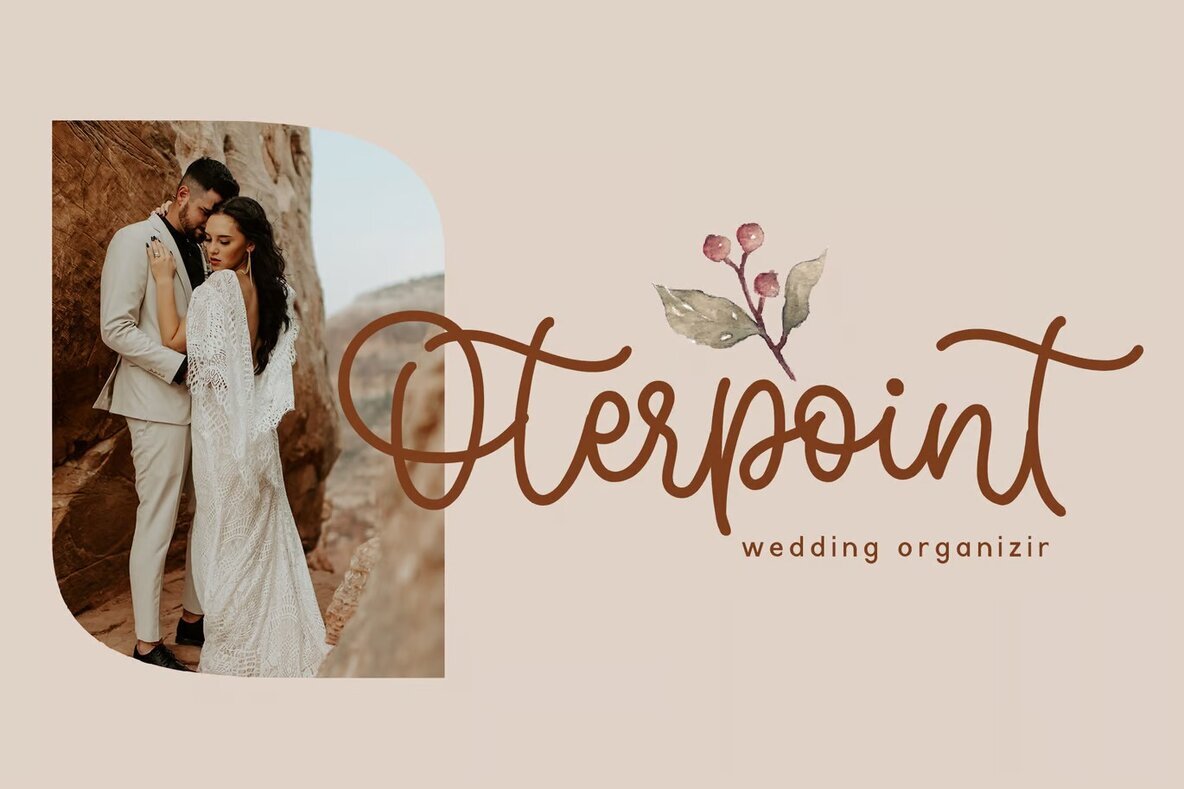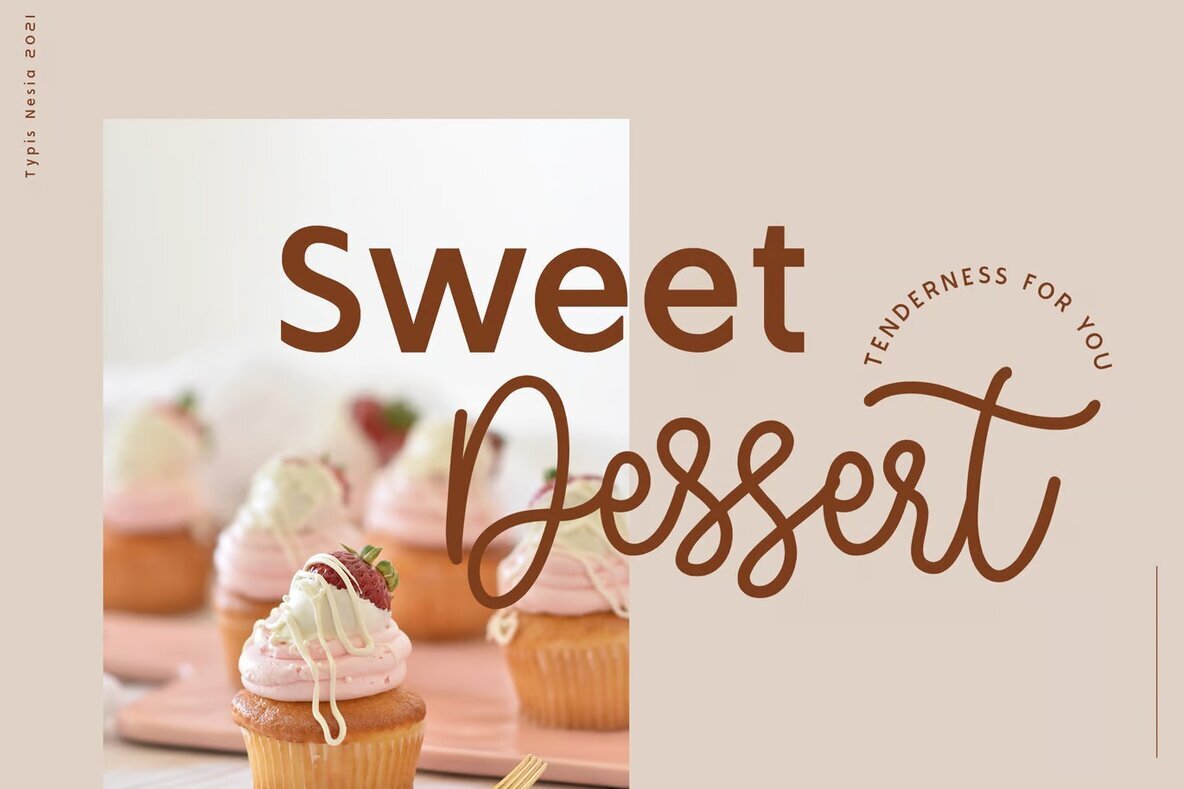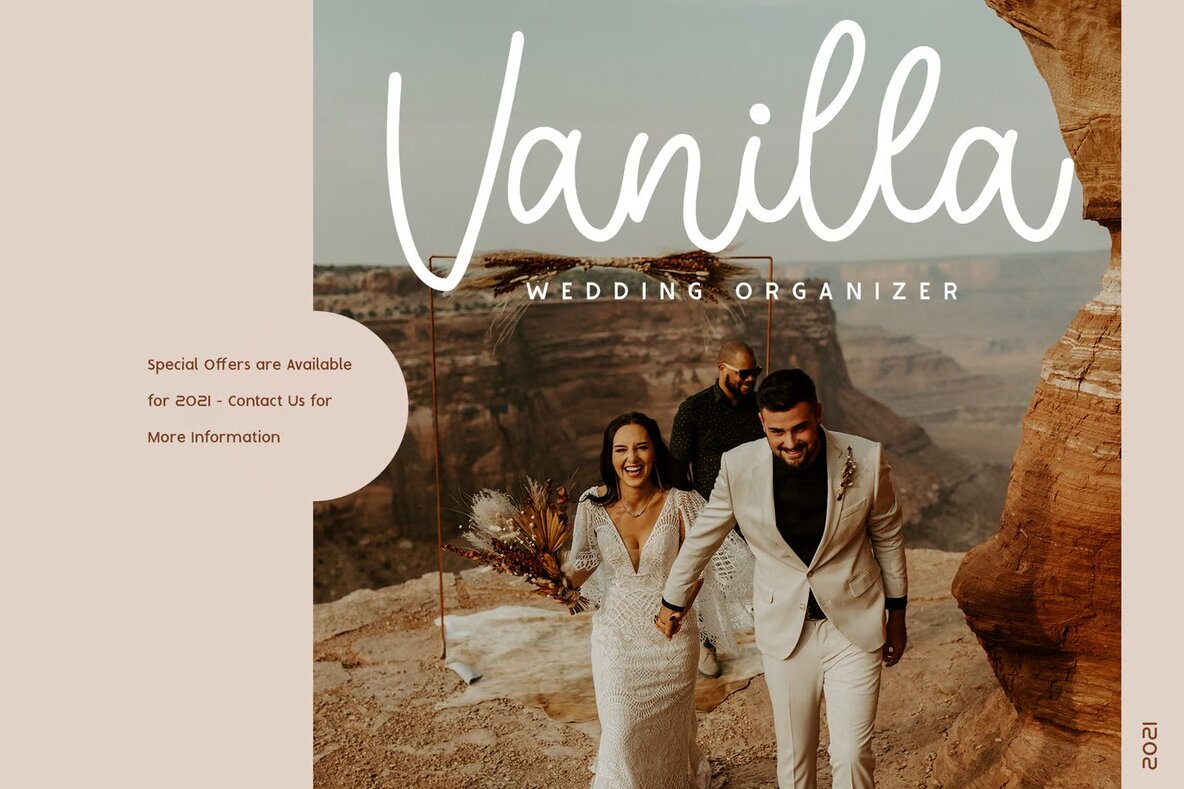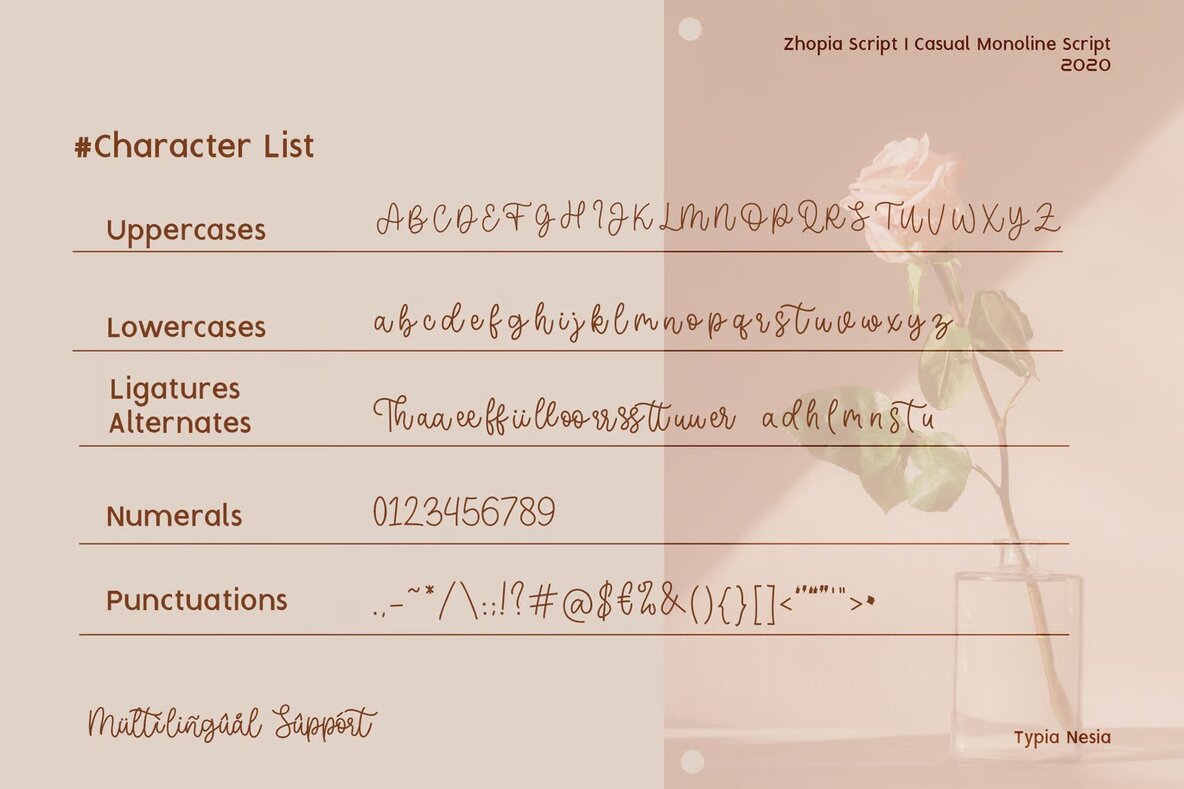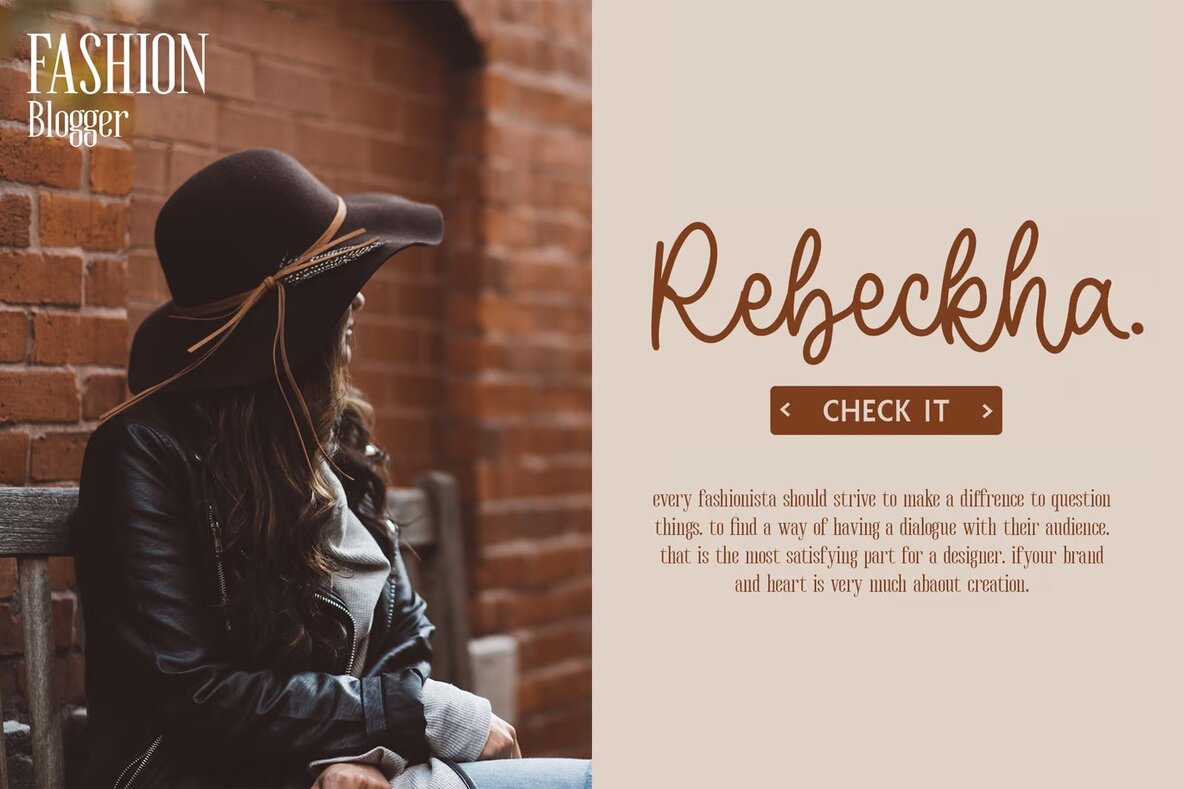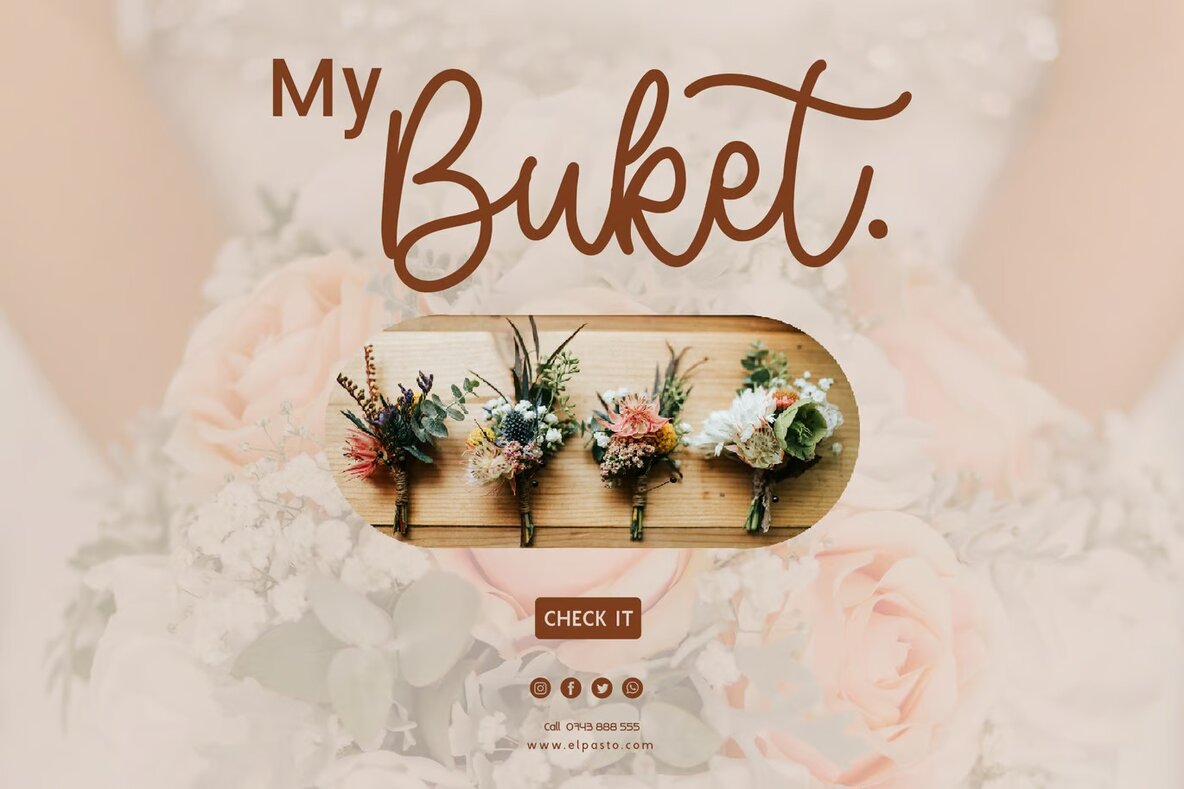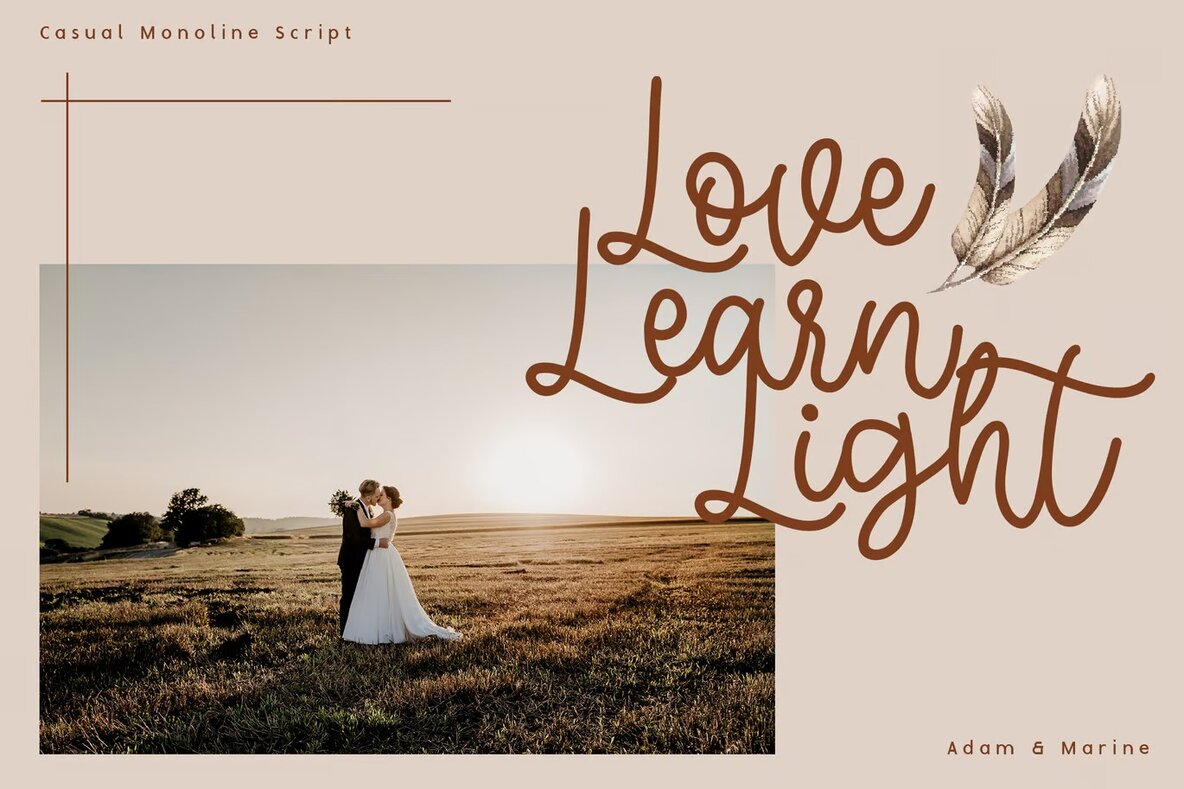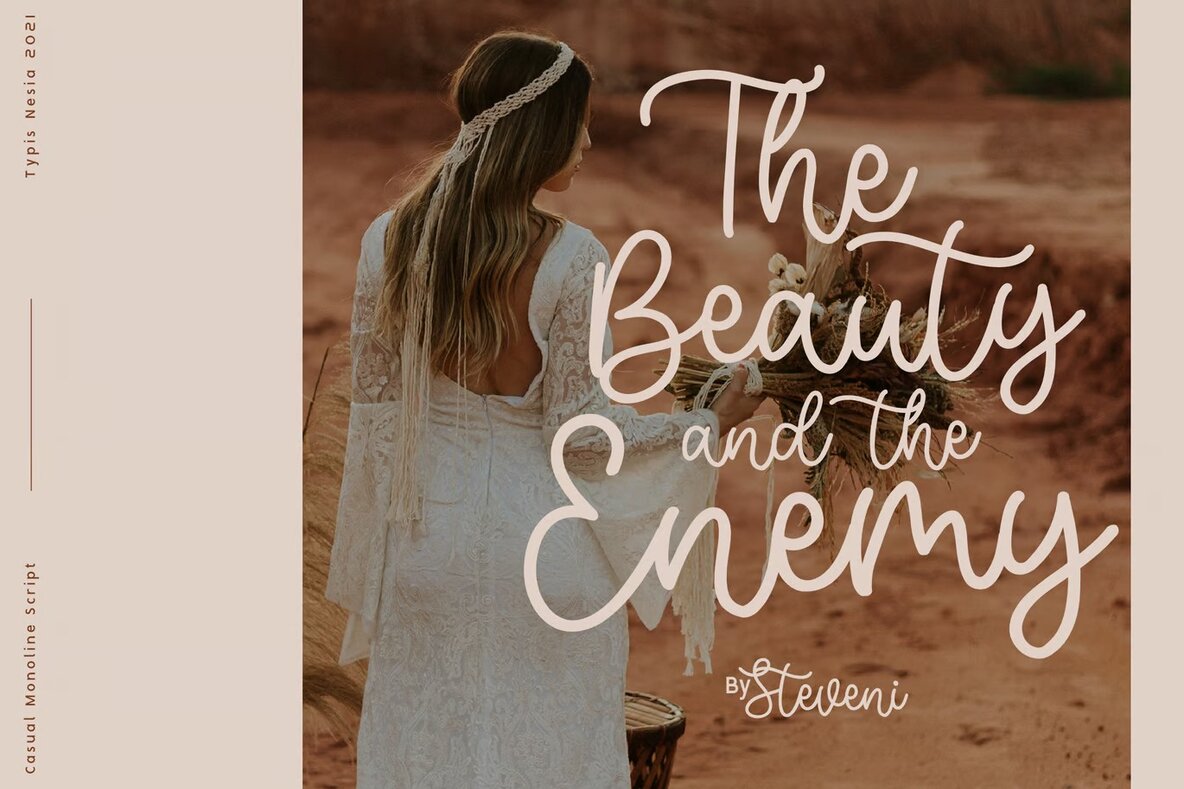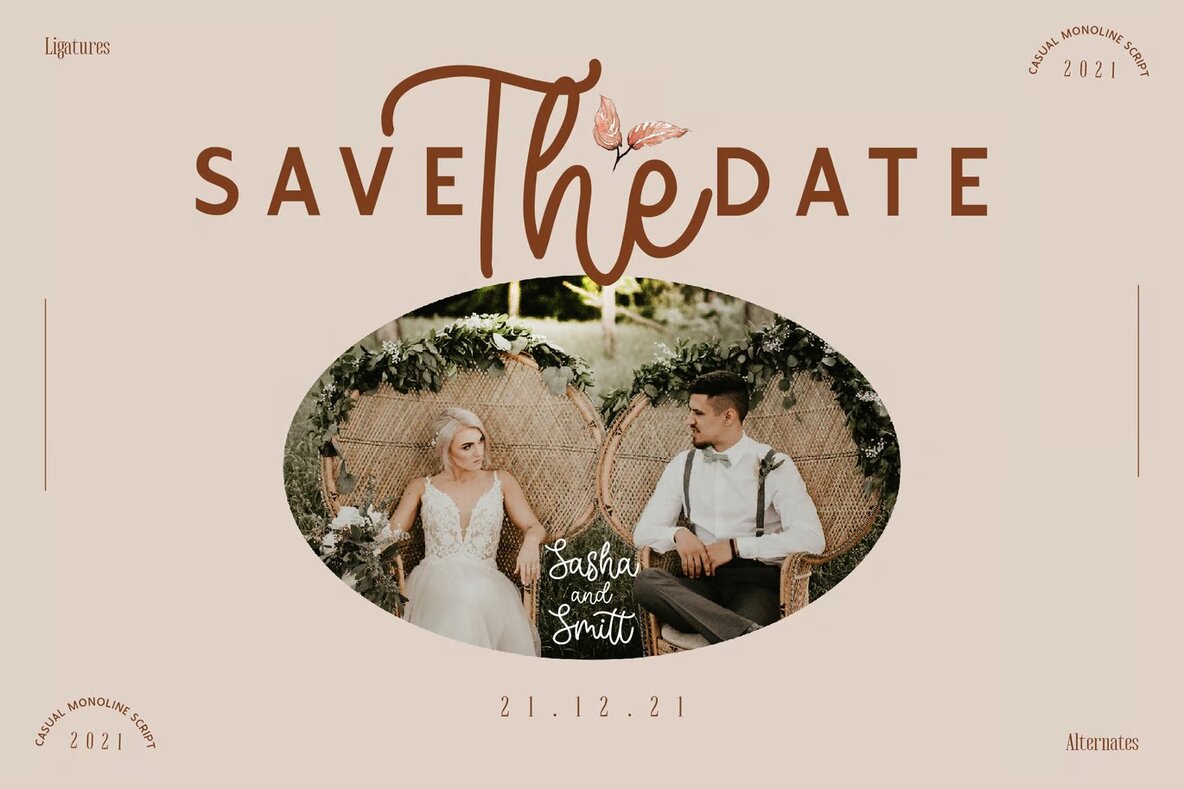
Zhopia Font
Introducing an aesthetic bohemian beauty, the modern bouncy monoline script embodies elegance and creativity, ideal for a wide range of design projects. Its unique flow and accessible handwritten style make it a perfect choice for wedding designs, feminine branding, social media graphics, and greeting cards. This fancy handwritten signature font adds a personal touch to modern invitations, photography branding, and stationery designs. Its versatility enhances blog designs and modern advertising, making it suitable for diverse creative applications.
With its distinctive style, this font is perfect for special events, birthday celebrations, and personalized items like custom mugs and pillows. It's an excellent choice for home décor, book titles, and art quotes, adding a charming flair to any signature font need. Seamlessly integrate it into your design projects to enhance visual appeal without sacrificing clarity or impact. Whether you're designing t-shirts, crafting invitations, or developing unique branding materials, this font offers the ideal blend of style and functionality.